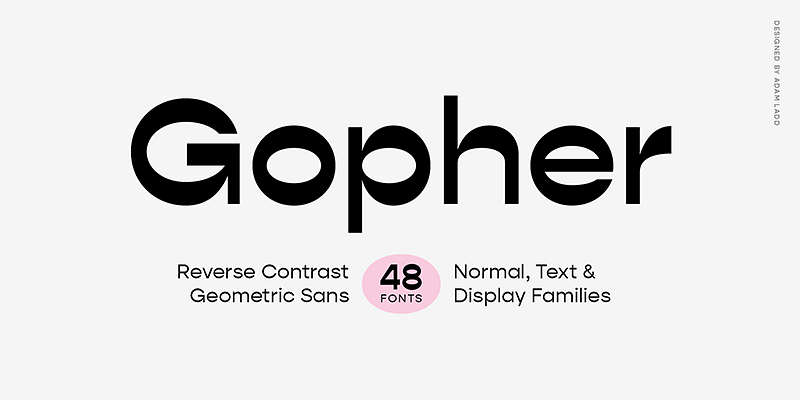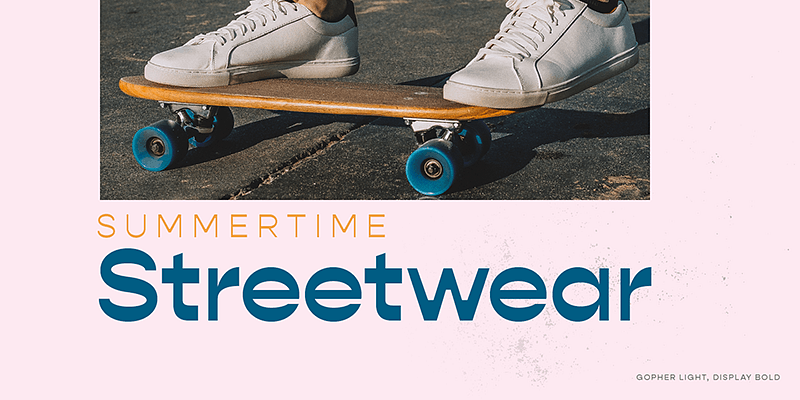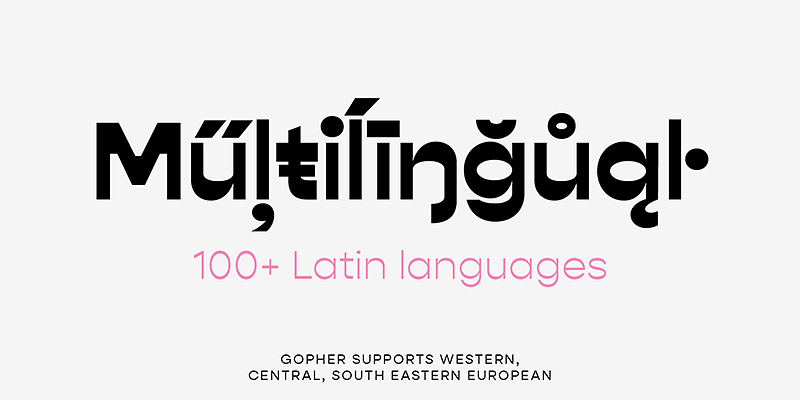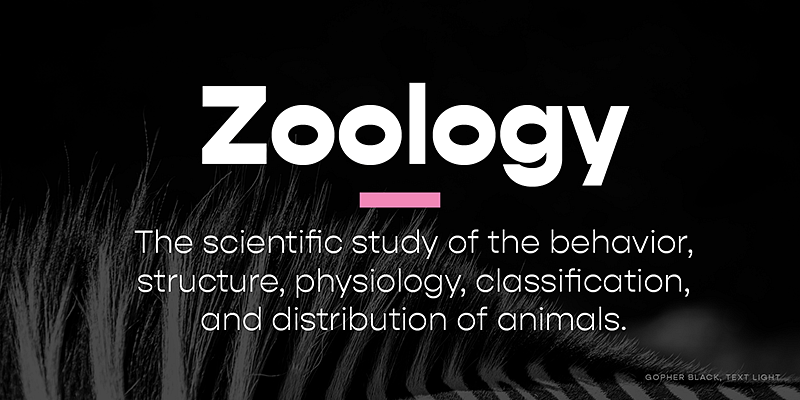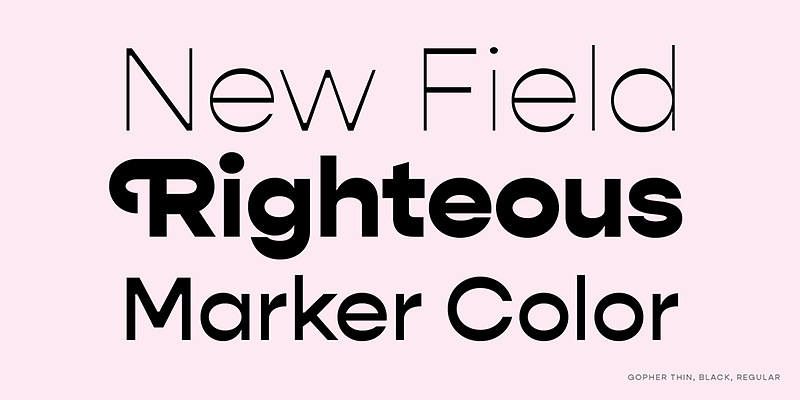
Gopher, Gopher Text, and Gopher Display comprise the families in this modernly quirky take on the reverse contrast, geometric sans. A variation in the amount of contrast distinguishes the three separate families while allowing them to work in harmony together. A generous range of dramatic affect adds to the versatility with Text having the most minor contrast and Display the most for immediate visual impact. The 48 included styles in the complete family range from hairline to heavy and italics.